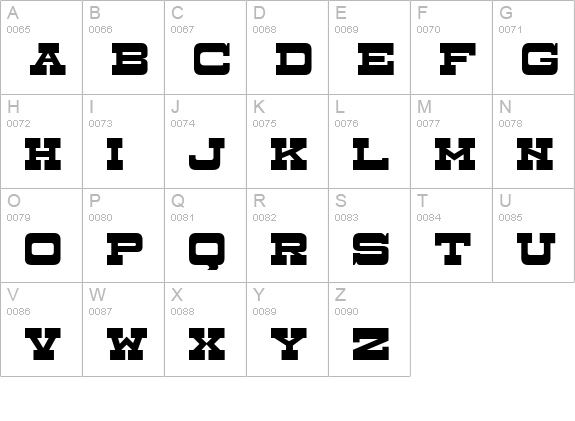
Dry Goods JL font is a charming and versatile typeface that adds a touch of vintage elegance to any design project. With its unique serifs and classic styling, this font is perfect for creating stunning headlines, logos, and branding materials. The timeless appeal of Dry Goods JL font makes it a popular choice for a wide range of design applications. What makes Dry Goods JL font even more appealing is that it is available for free download at FontsMarket.com. This means that you can easily access this beautiful font and use it in your design projects without any cost. Whether you're a professional designer or a hobbyist looking to add a touch of sophistication to your creations, Dry Goods JL font is a fantastic choice that won't break the bank. Download Dry Goods JL font today and elevate your designs with its classic and elegant aesthetic. With its timeless appeal and versatile styling, this font is sure to become a staple in your design toolkit.